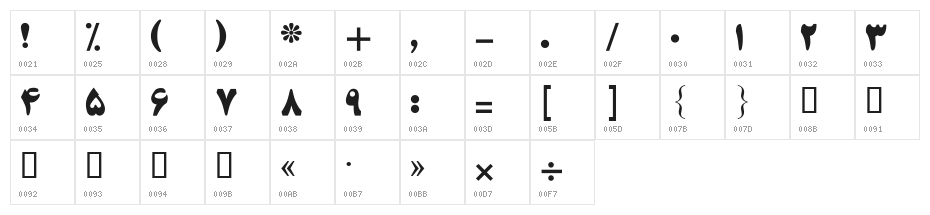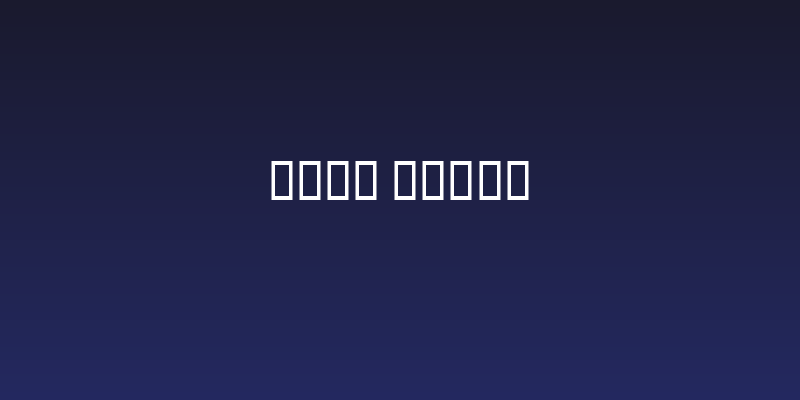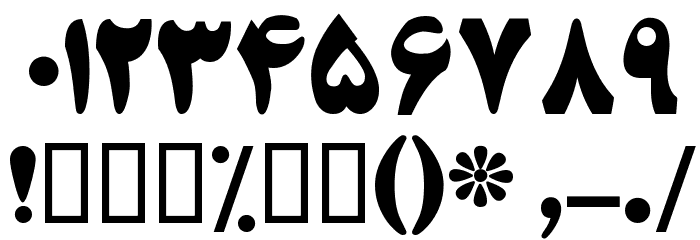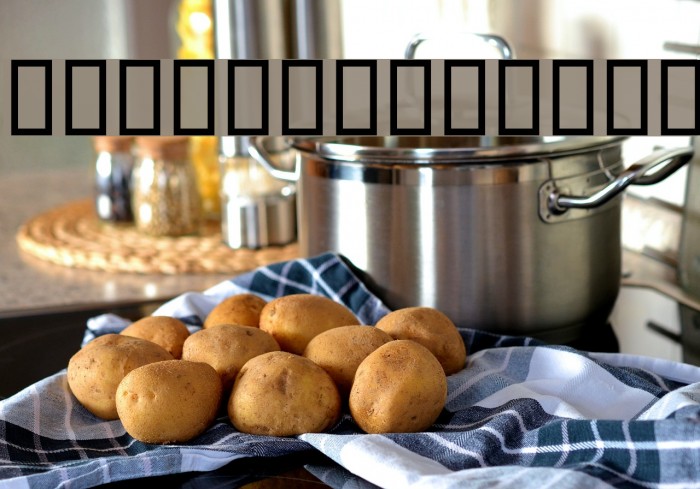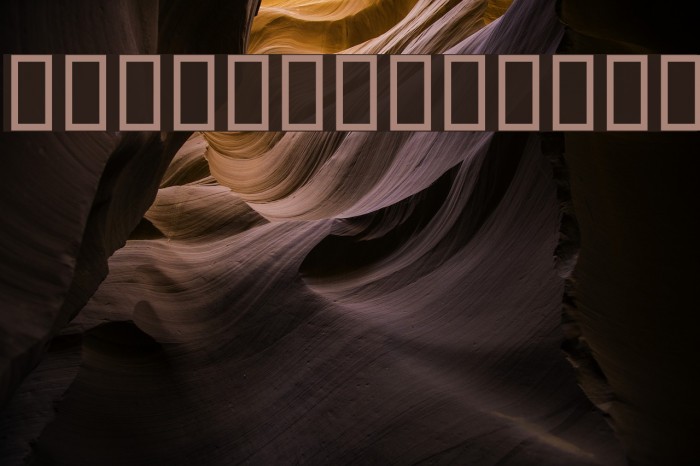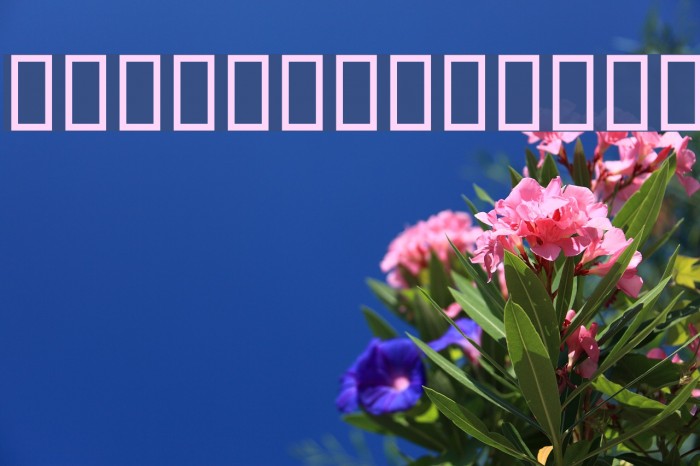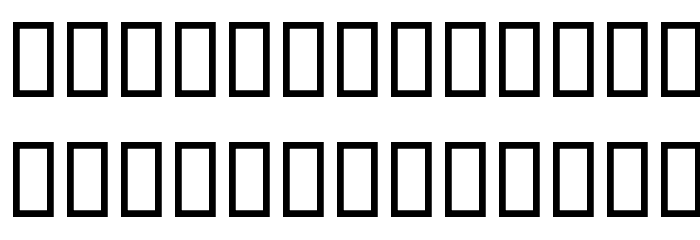
Titr Fancy Font
Titr Fancy Description
This font features a bold and artistic style with a unique flair that combines traditional and modern elements. The characters are designed with a strong emphasis on curves and angles, creating a dynamic and eye-catching appearance. The numbers and special characters are particularly stylized, adding a decorative touch that enhances the overall aesthetic. This font is ideal for projects that require a distinctive and memorable look, making it suitable for creative and expressive designs.
| Proposed Projects | Ideal for branding, posters, and creative design projects that require a distinctive and memorable style. |